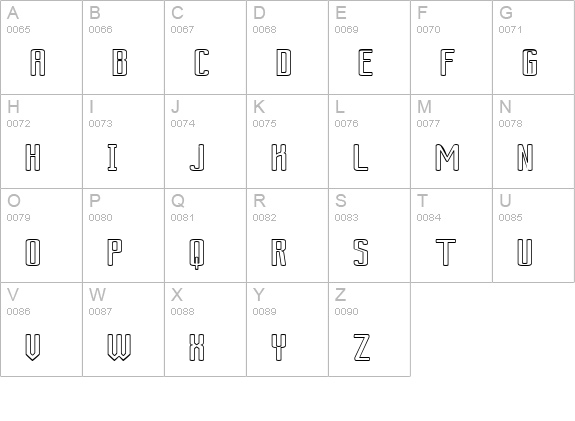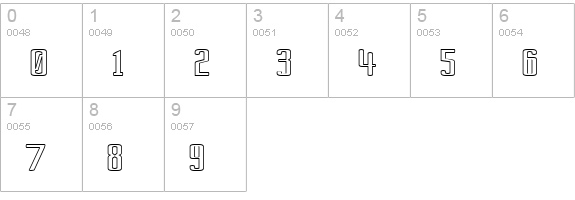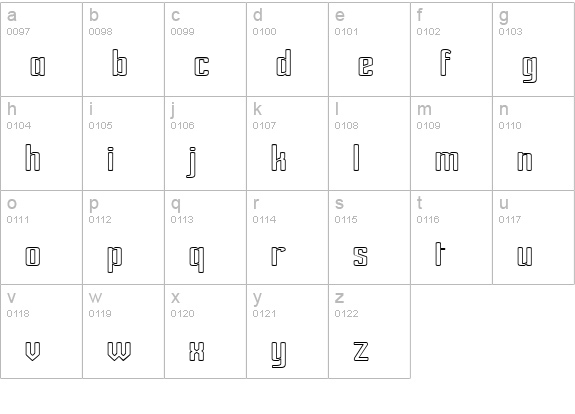
Ardour Outline Font Details
Ardour Outline font is a modern and stylish typeface that exudes elegance and sophistication. Its clean lines and unique design make it perfect for a wide range of design projects, from branding to web design. The outline style adds a touch of creativity and visual interest, making Ardour Outline font stand out from the crowd. What's even better is that Ardour Outline font is available for free download at FontsMarket.com. This means you can easily access this beautiful font and use it in your projects without any cost. Don't miss out on this opportunity to enhance your designs with the stunning Ardour Outline font, now available for free at FontsMarket.com.